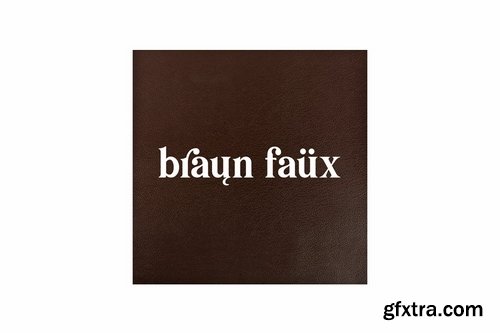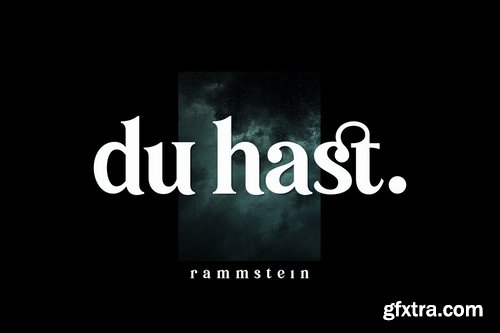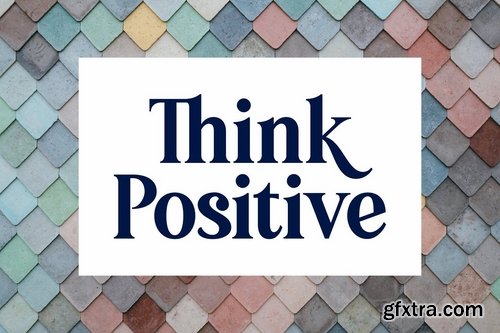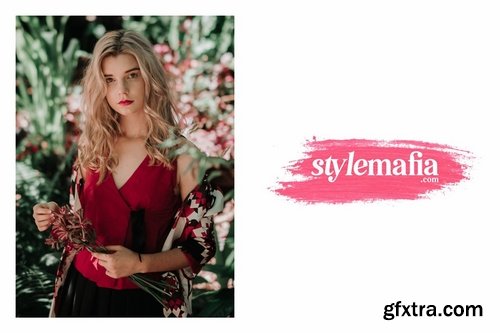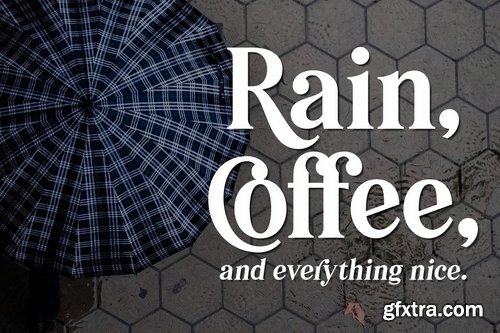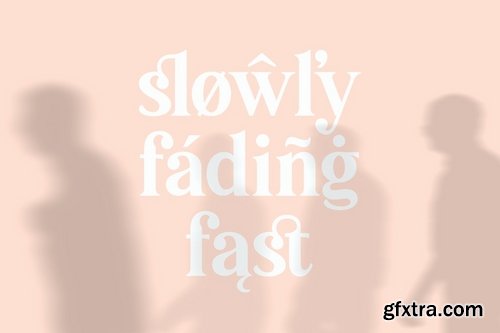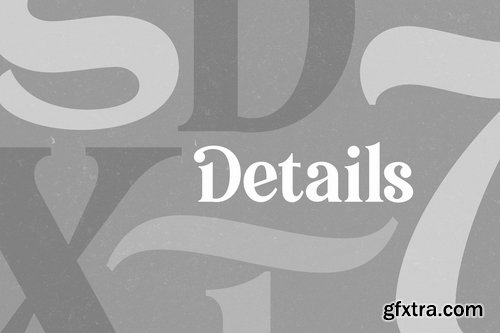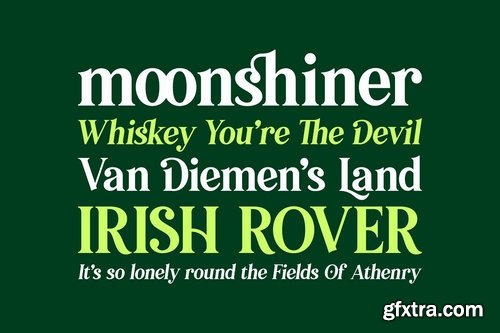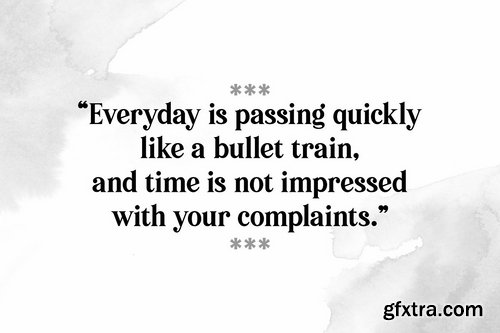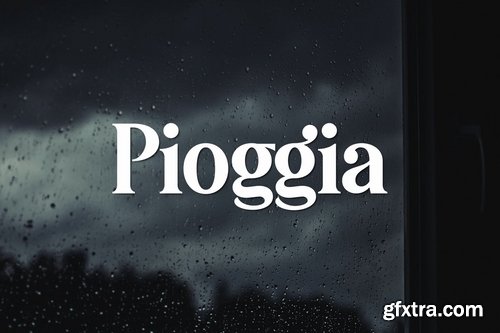
Introducing Pioggia, a modern and playful serif font. This clean and minimalistic serif is crafted with love and high attention to the details. Packed with OpenType features (such as alternate chars, swashes, ligatures, etc), lets you play and explore every characters available. Pioggia is very versatile, suits best for almost everything, whether you're working on classic themed design, or the modern ones. If you're often working with a logotypes, hipster-quote writings, t-shirt designs, etc, Pioggia is your next go-to font.